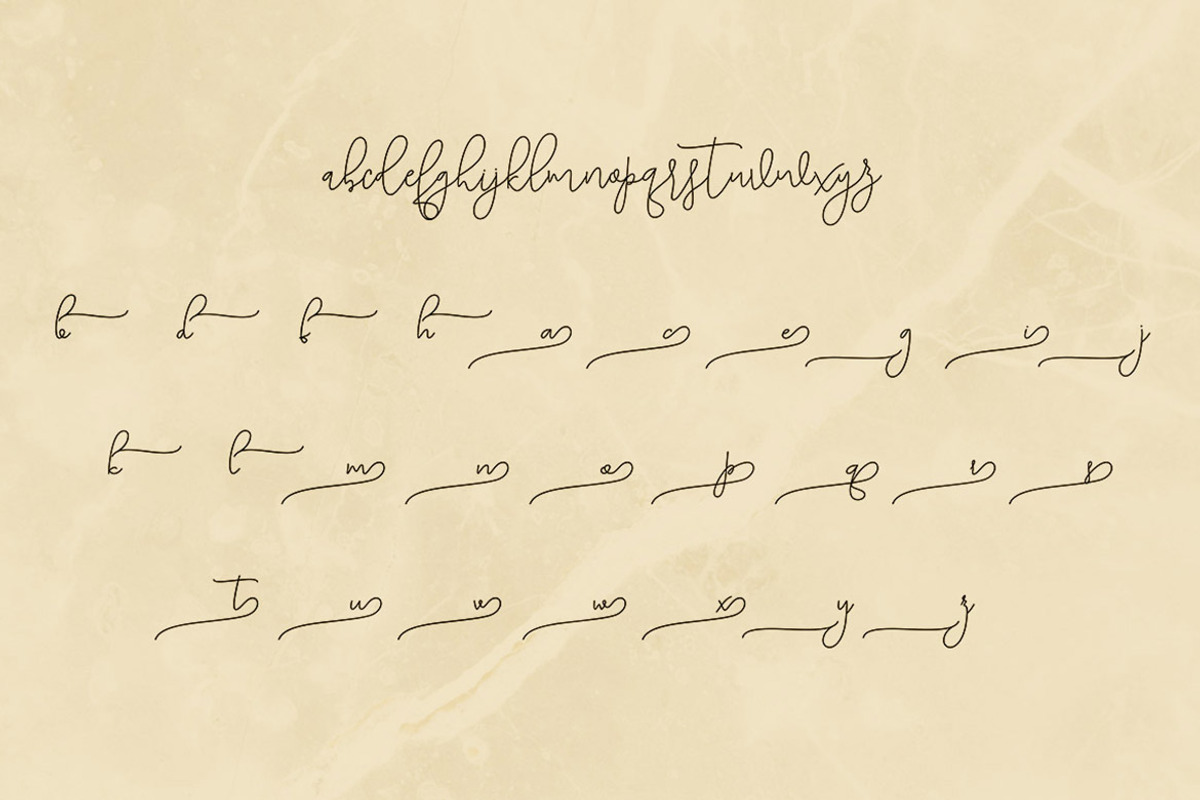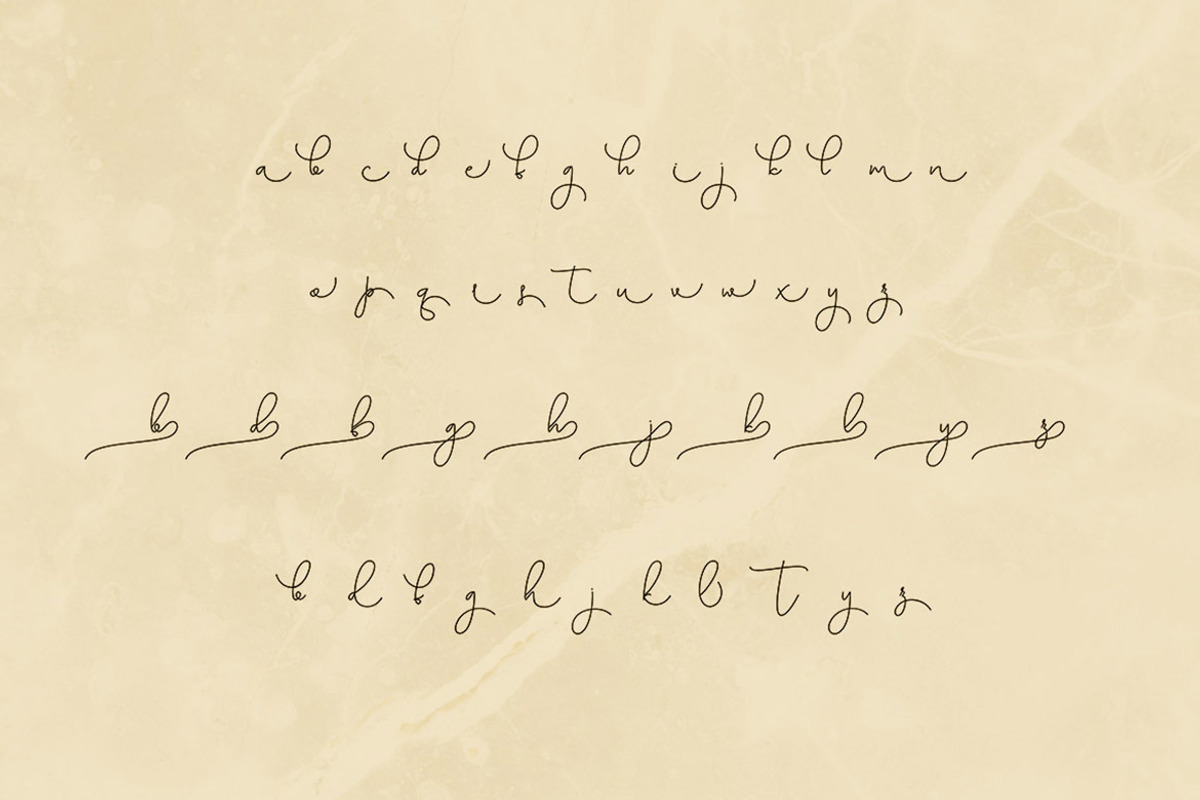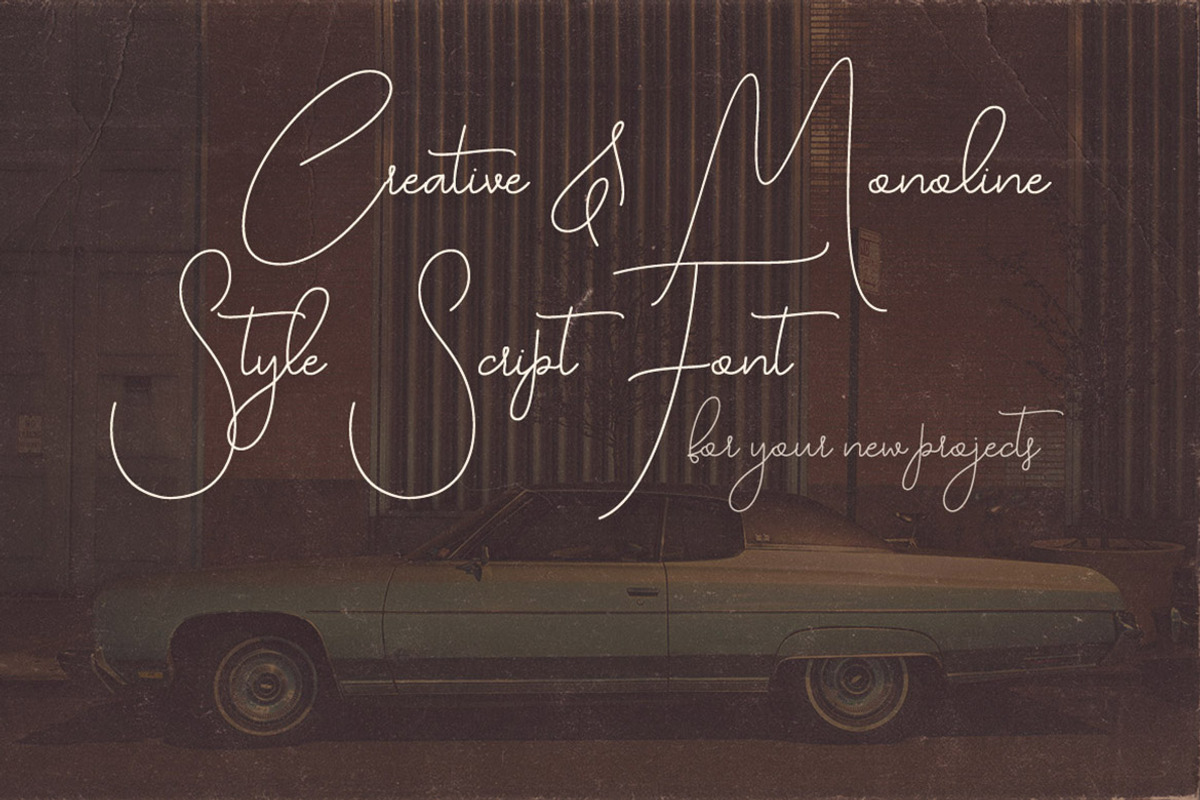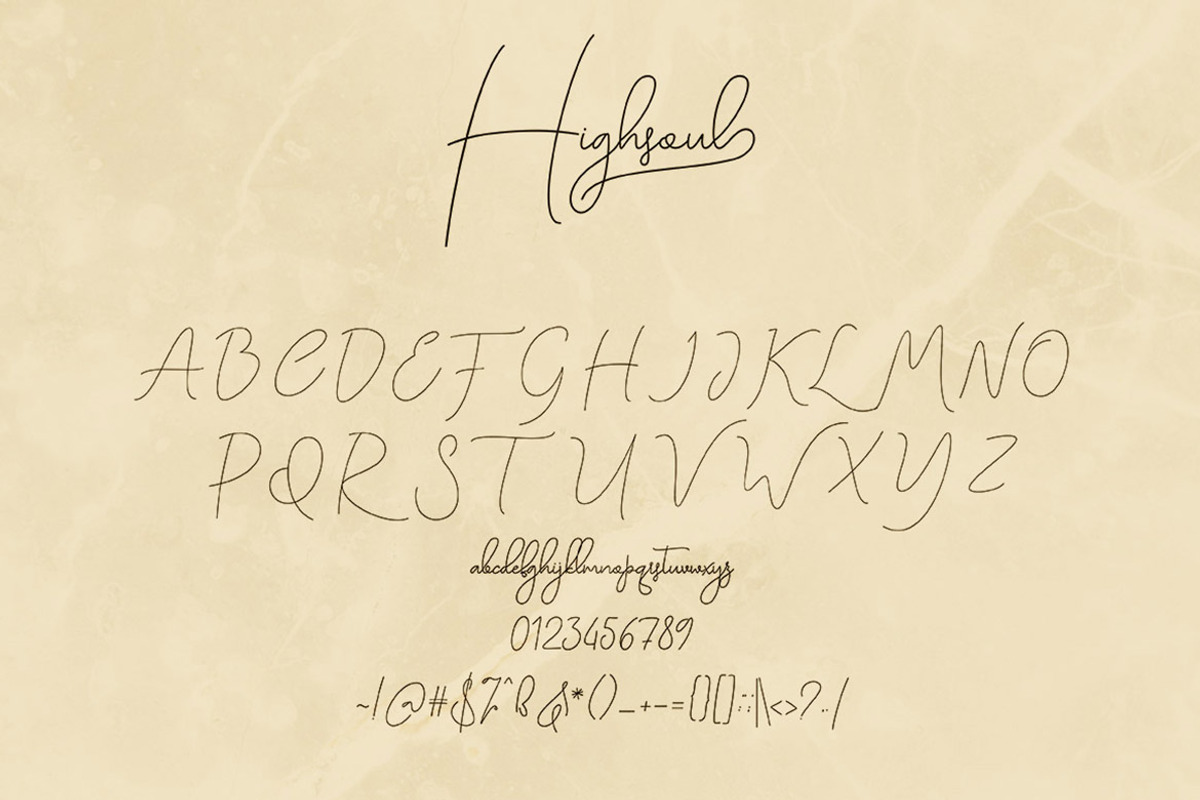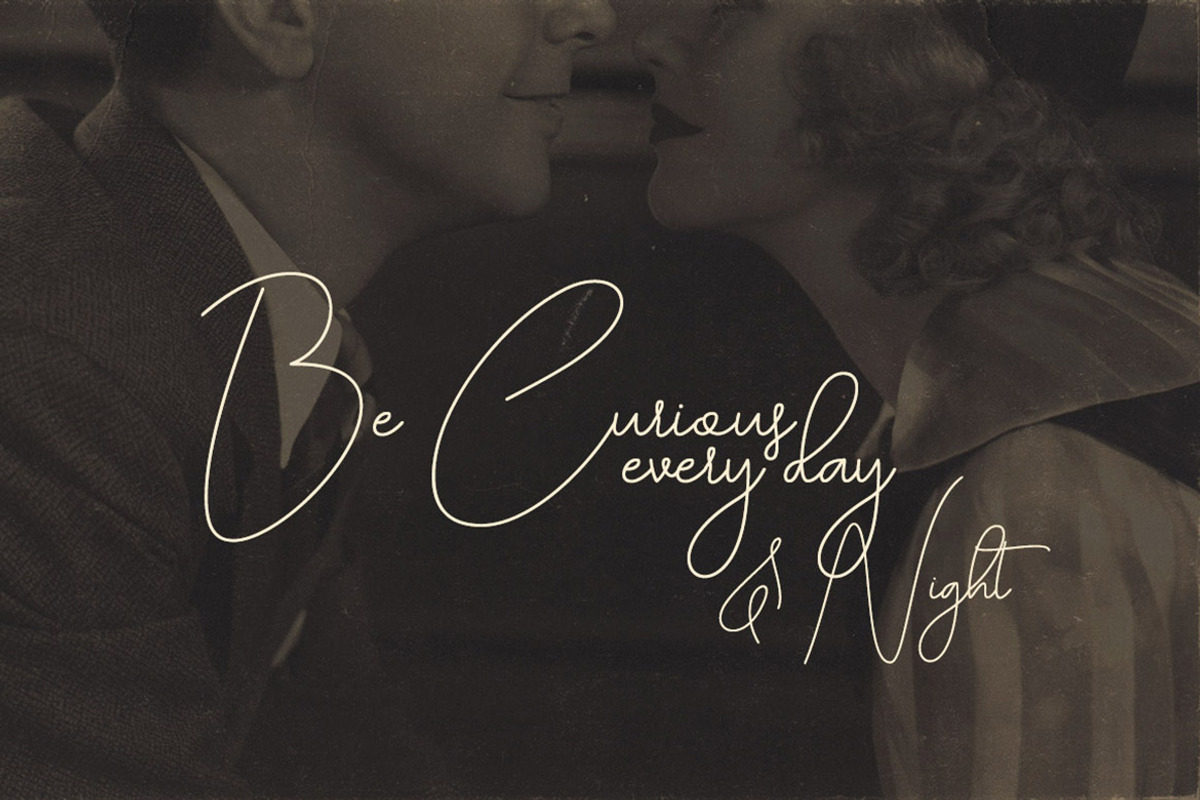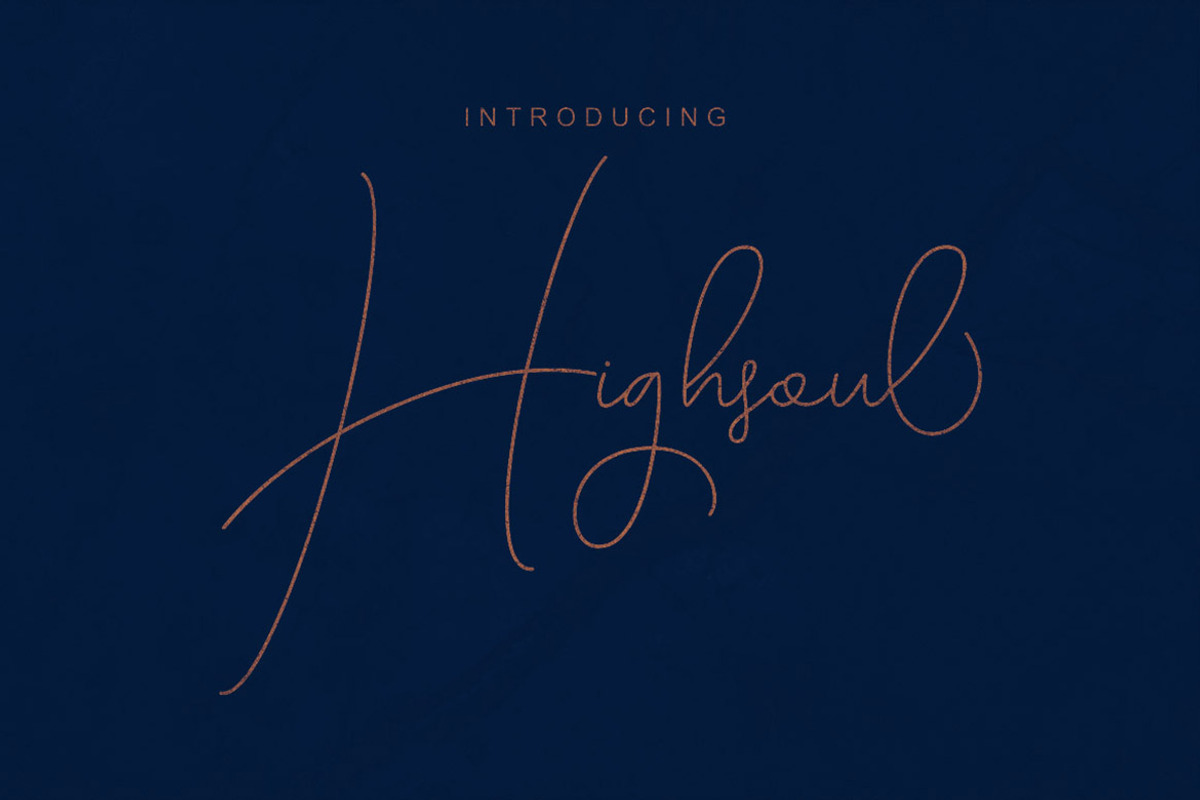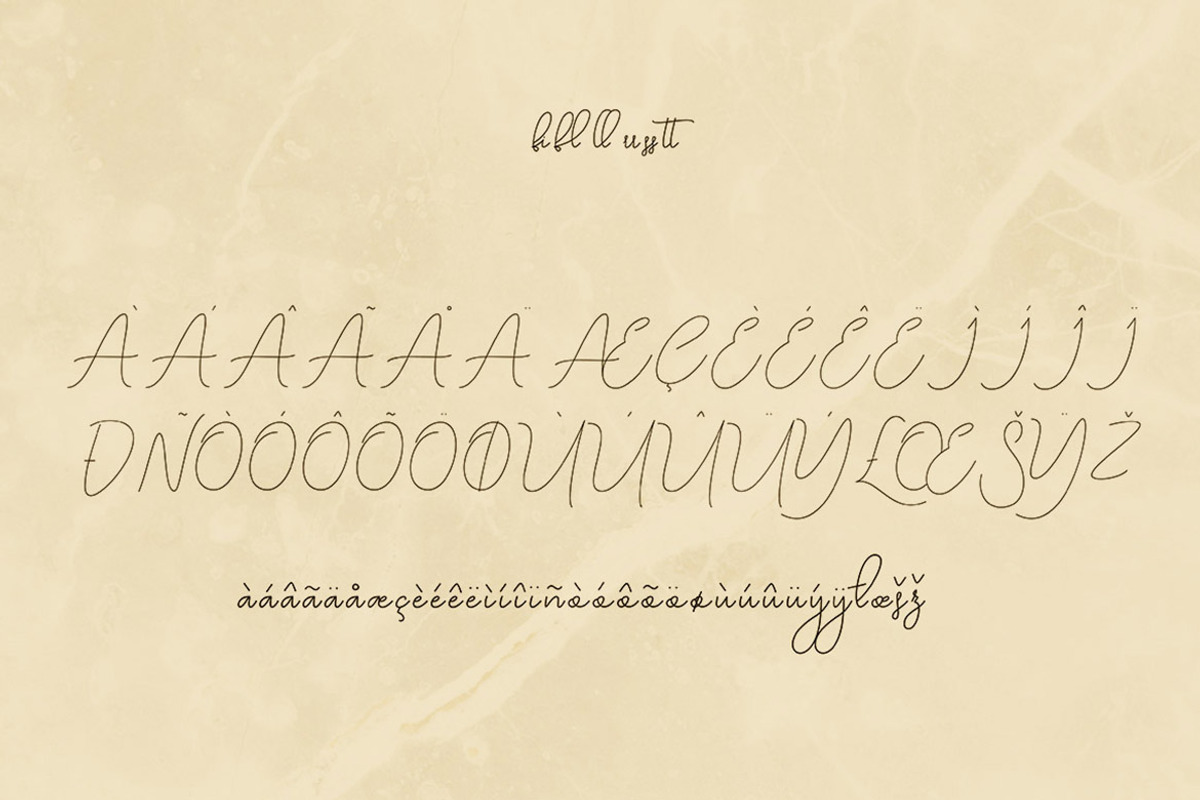
Highsoul Script Font
Simple and monoline or creative style script font for your new projects. With multi language support and lot of stylistic alternates & swashes. Enjoy ;)
- With multi language support and lot of stylistic alternates & swashes.
Highsoul Script Font by Deeezy fits naturally into Branding, posters, packaging, typography.